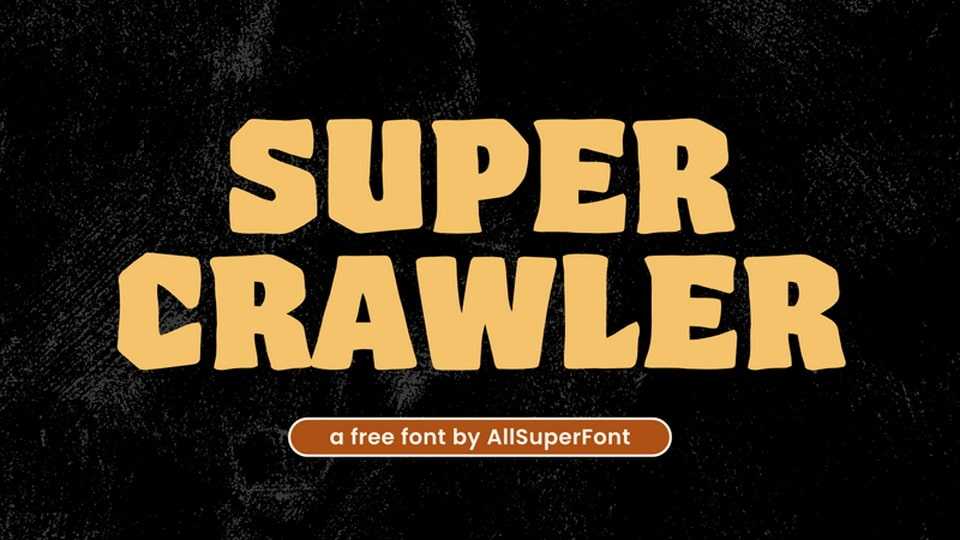
Download Super Crawler font, a bold, rugged display typeface with chunky, hand-cut shapes and a warm retro spirit. Its uneven contours and playful blocky forms create a friendly yet powerful presence.